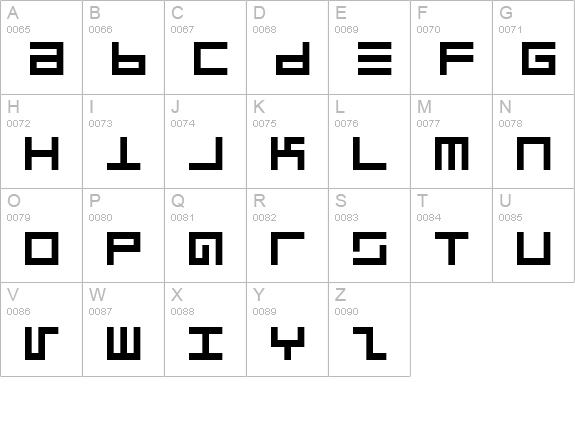
Epps Evans font is a modern and stylish typeface that exudes elegance and sophistication. With its sleek lines and balanced proportions, this font is perfect for a wide range of design projects, from branding to editorial. The versatility of Epps Evans font makes it a go-to choice for designers looking to make a statement with their typography. What sets Epps Evans font apart is not only its aesthetic appeal but also its accessibility. This premium font is available for free download at FontsMarket.com, allowing you to elevate your designs without breaking the bank. Whether you're working on a corporate identity or a personal project, Epps Evans font is sure to make a lasting impression with its timeless charm and contemporary flair.